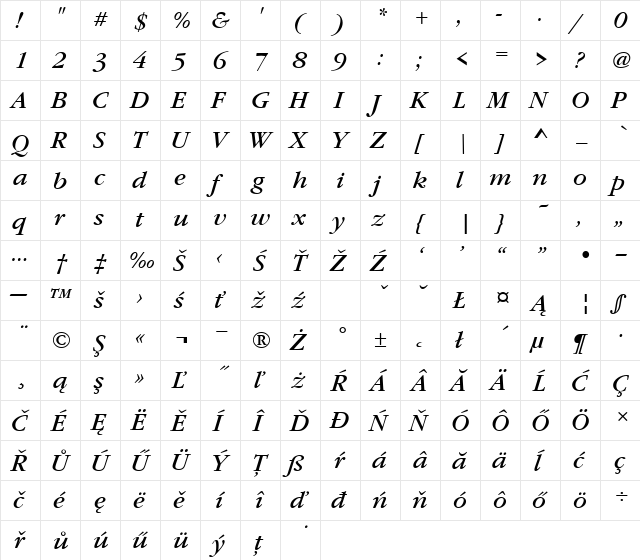
GaramItcTEE Italic Italic
Design Context for GaramItcTEE Italic Typeface
GaramItcTEE Italic takes a measured approach to typography — its balanced proportions and neutral character make it a reliable workhorse for both digital and print work. The dynamic lean of this cut emphasises speed and emphasis in any layout.
Pro Tip: Use GaramItcTEE Italic for emphasis, pull quotes, and subheadings where its slanted energy can add rhythm to the layout.